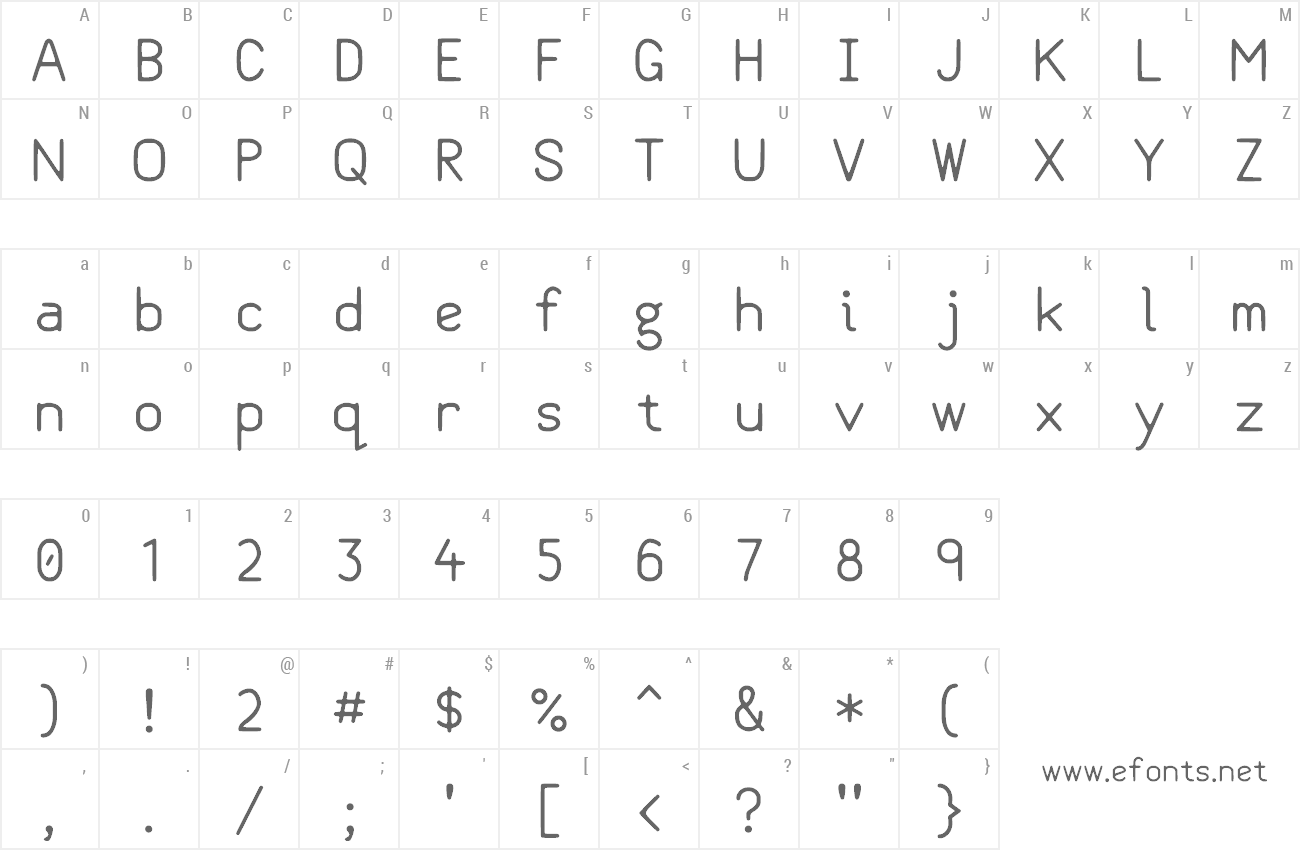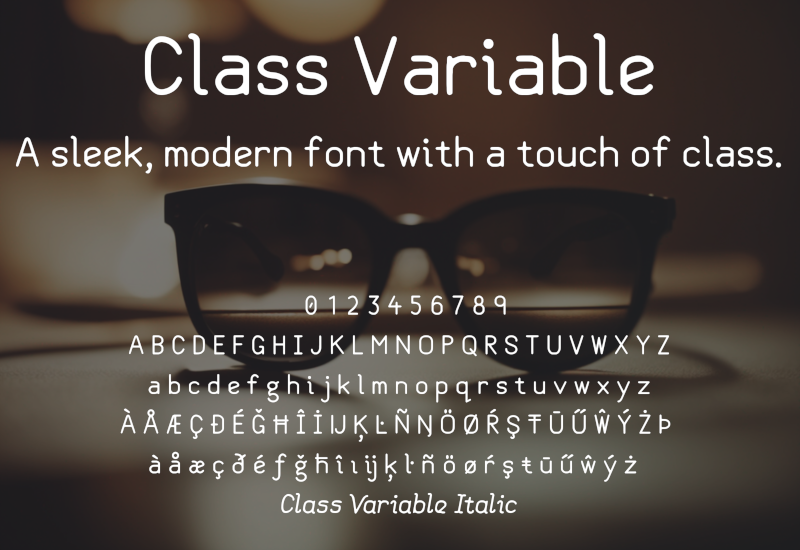
Preview and download Class Variable Font. Created by Walter E Stewart in Basic Sans serif styles with Public domain / GPL / OFL license.
Class Variable, A sleek modern font with a touch of class. Its smooth design makes it easy to read, perfect for digital designs like websites and apps. |